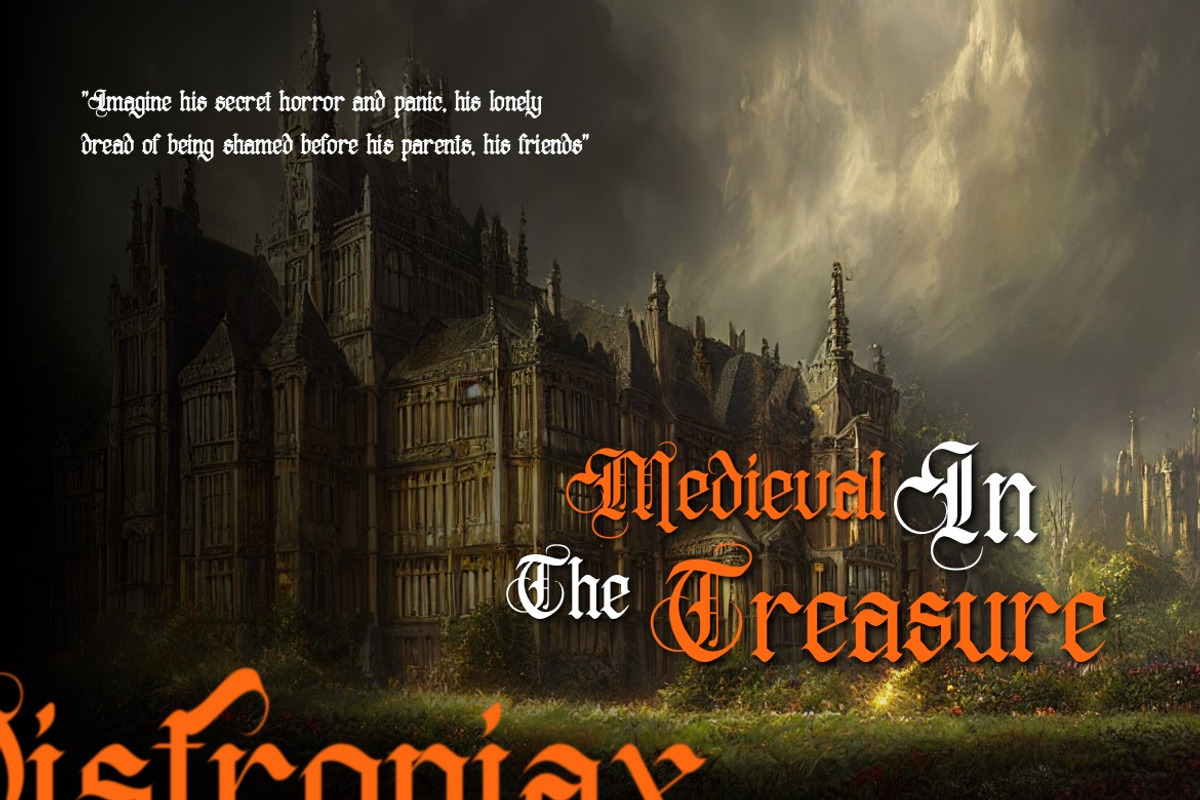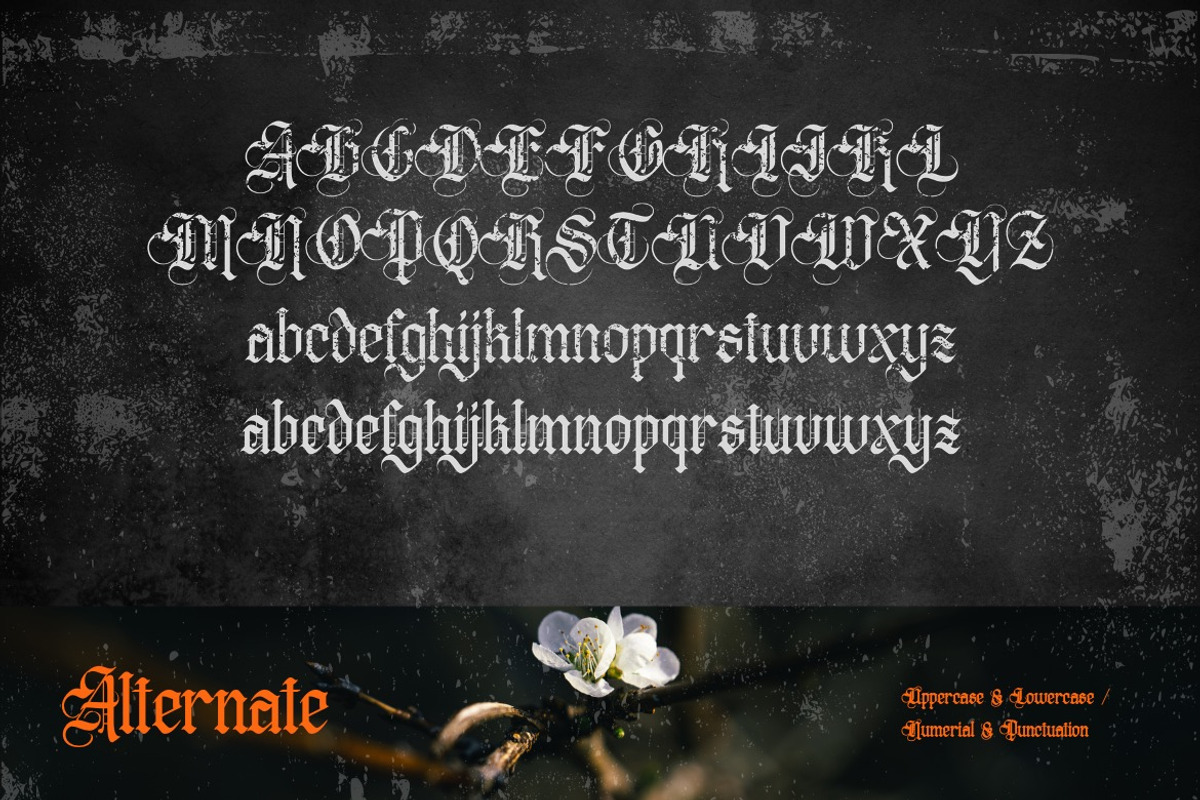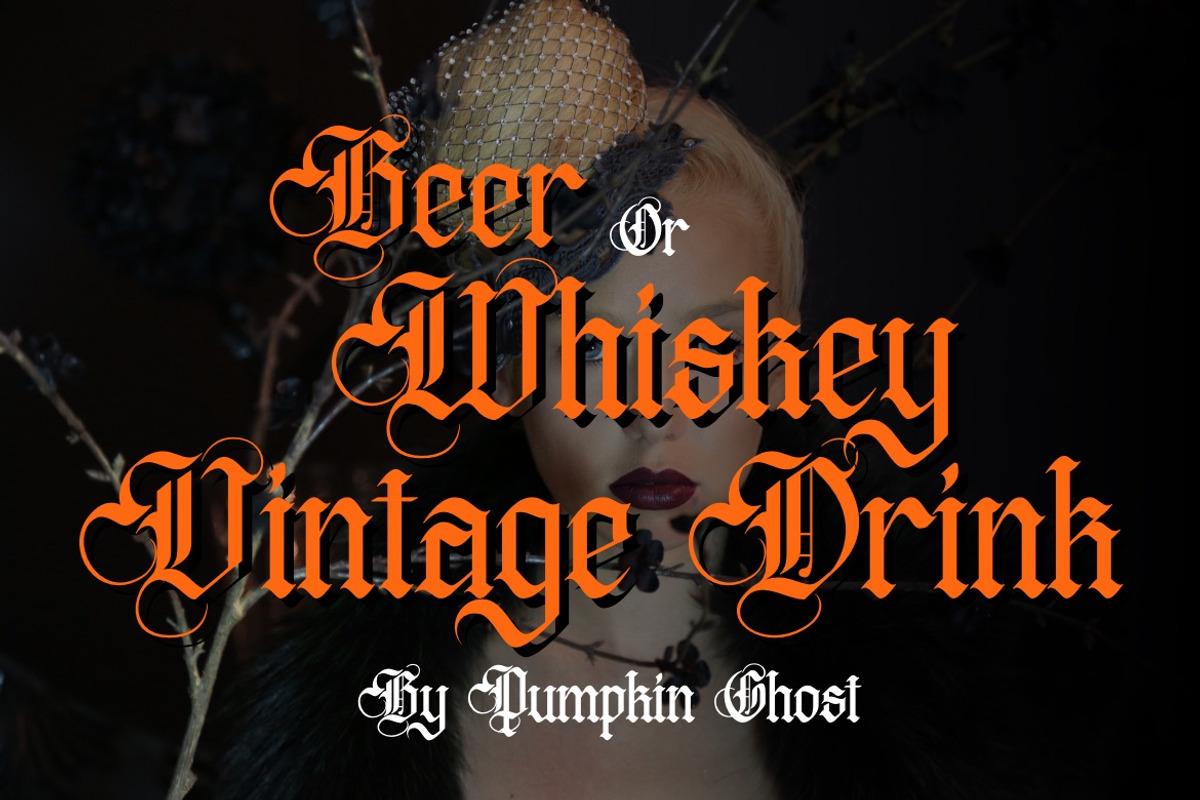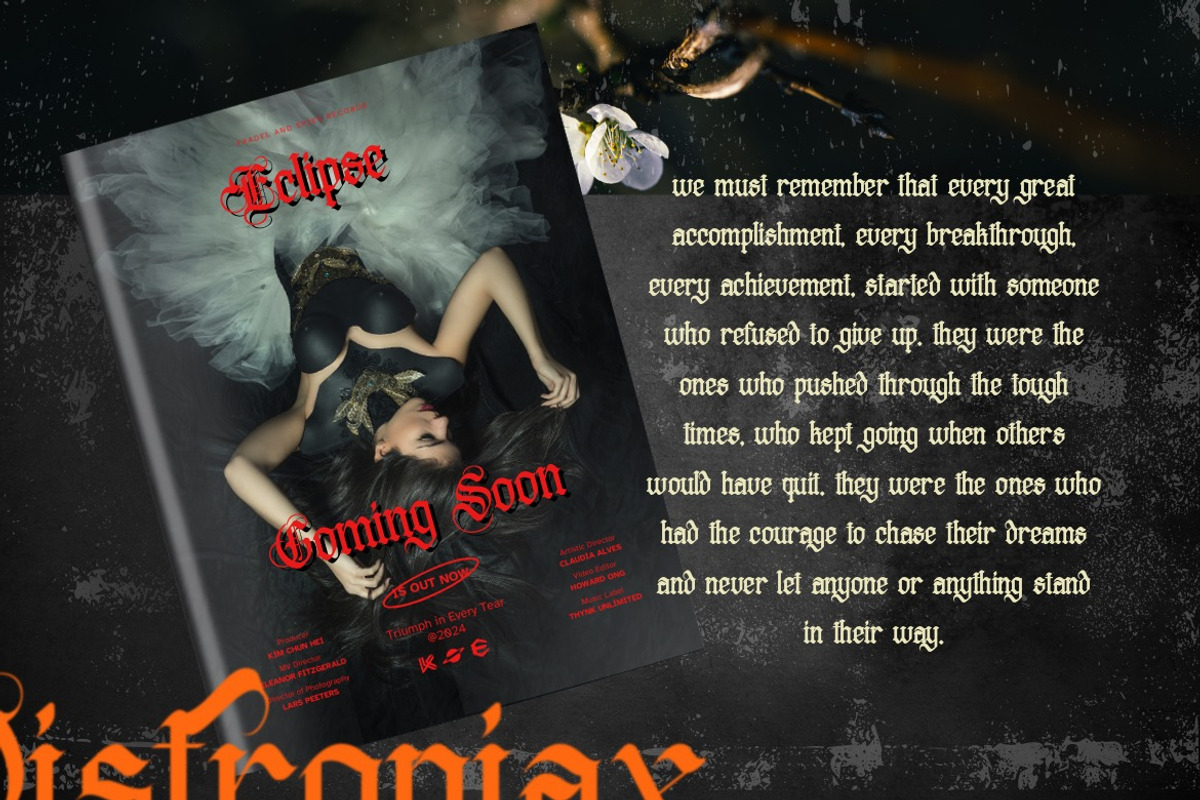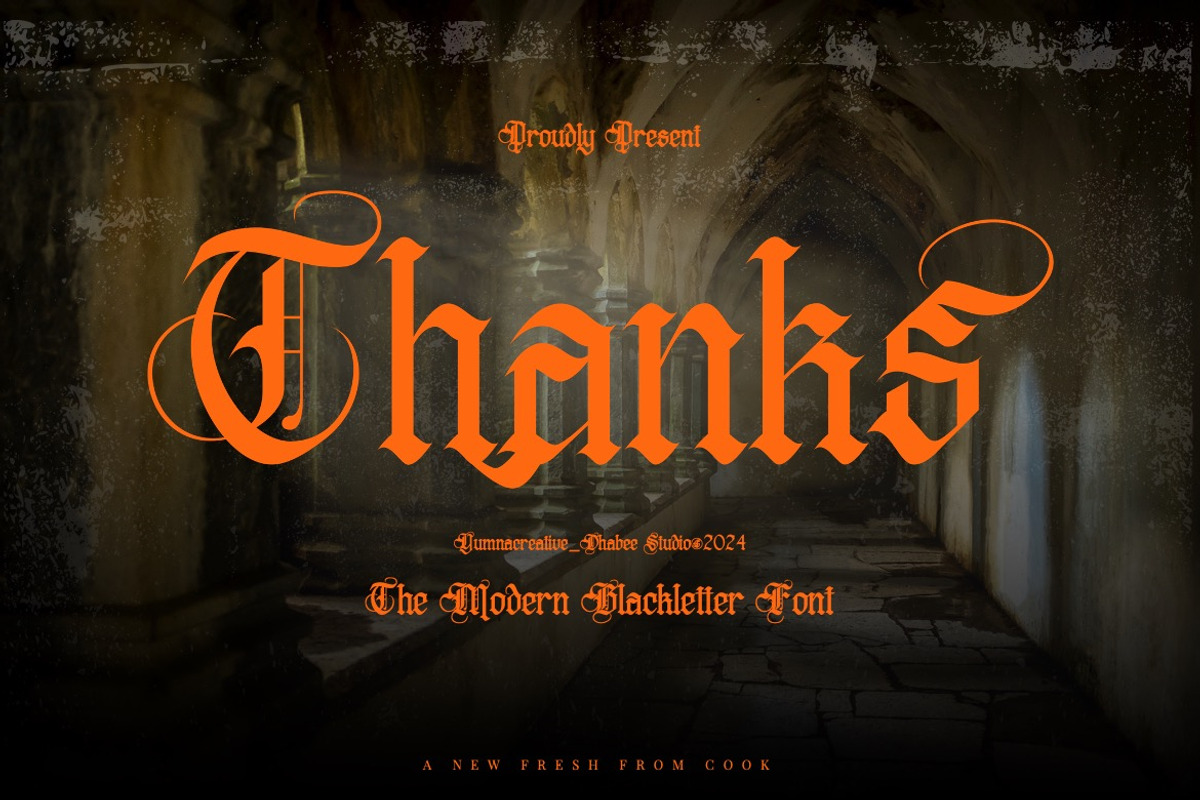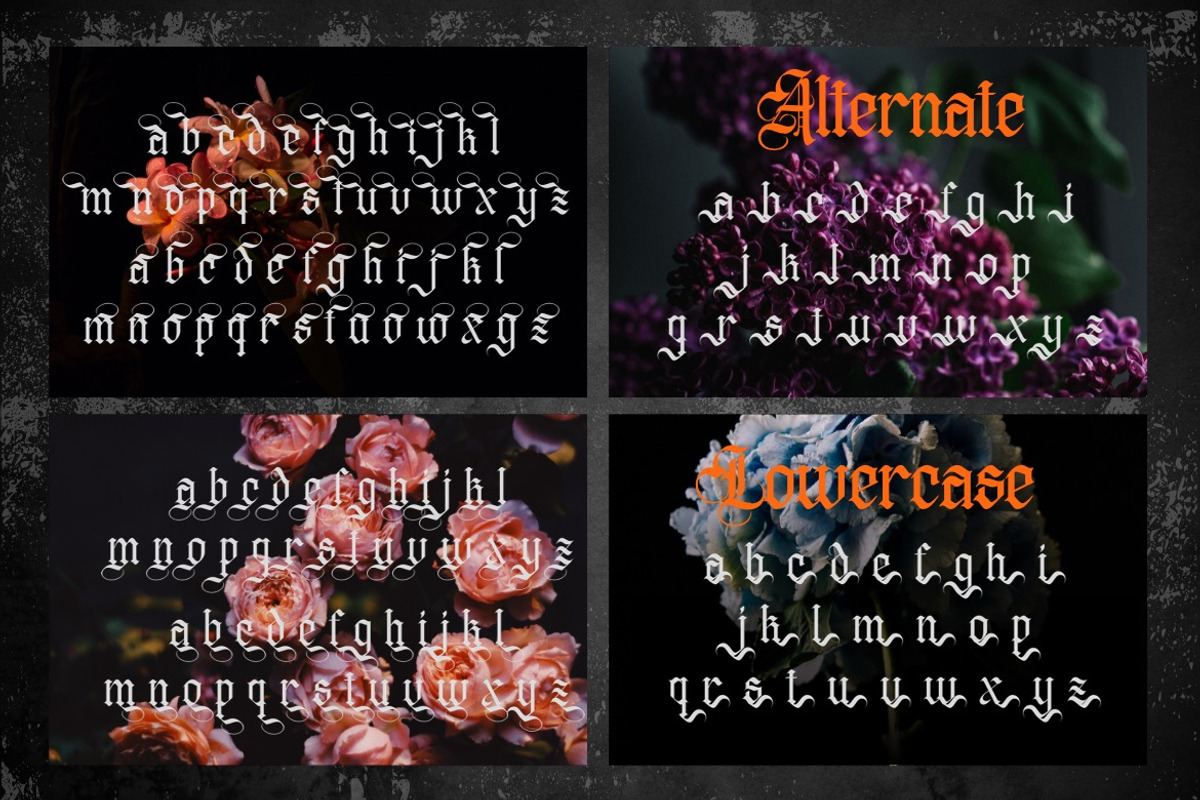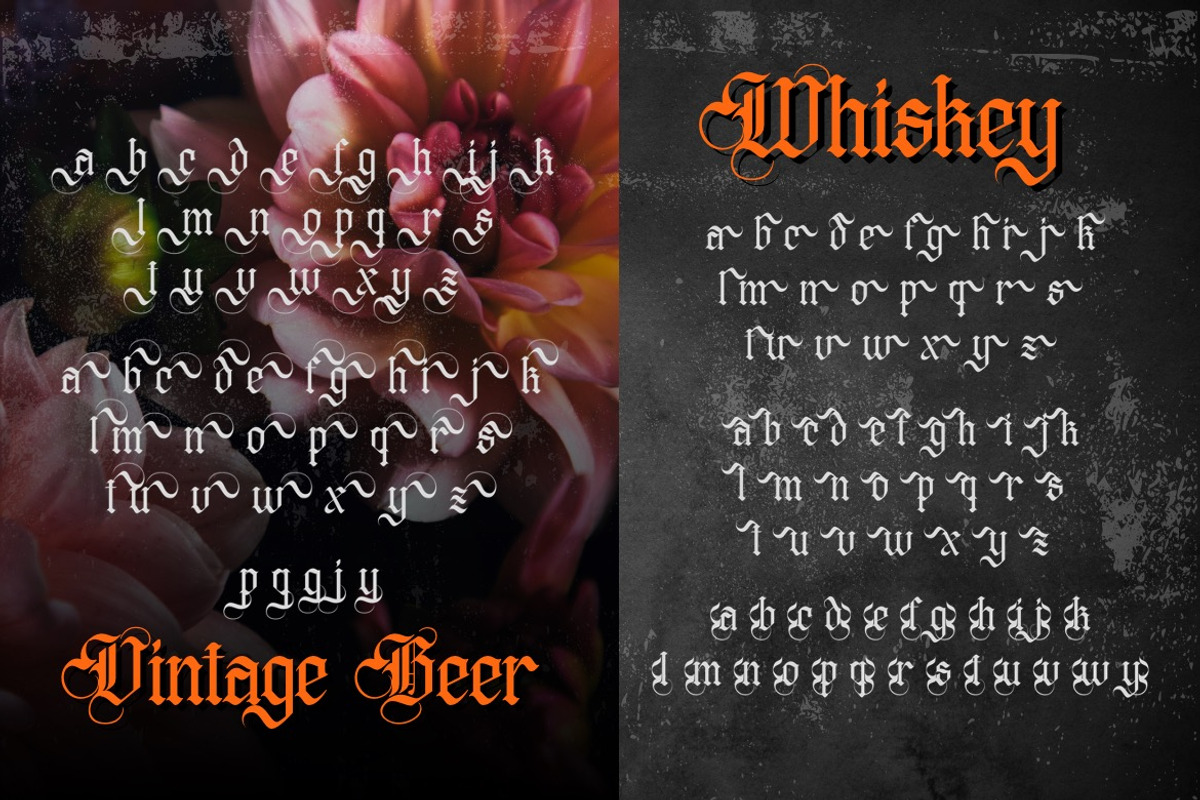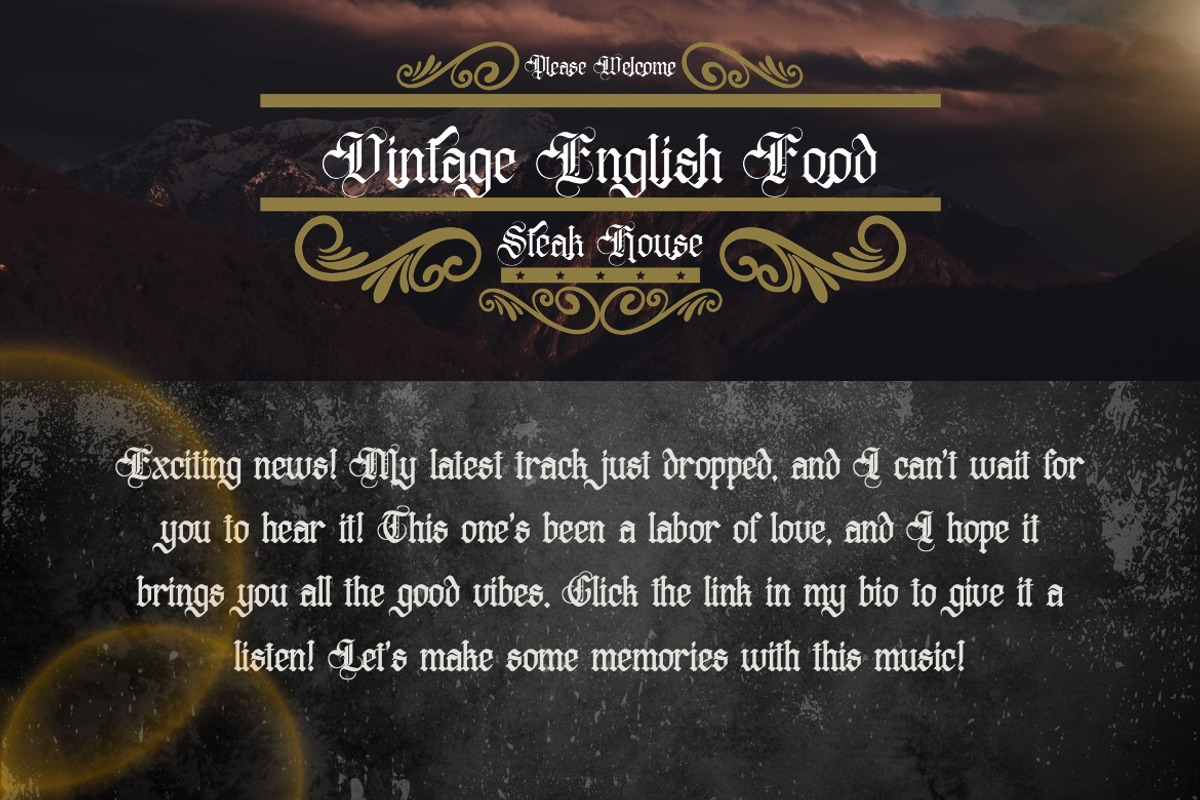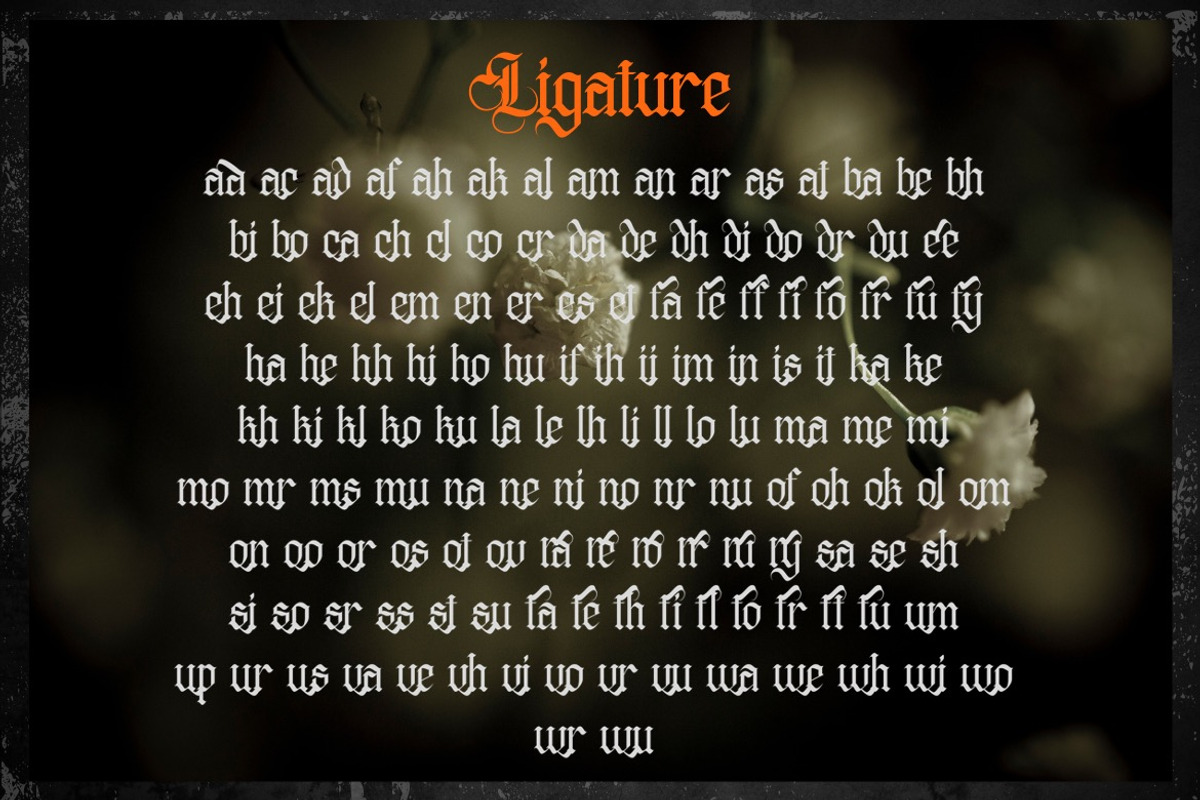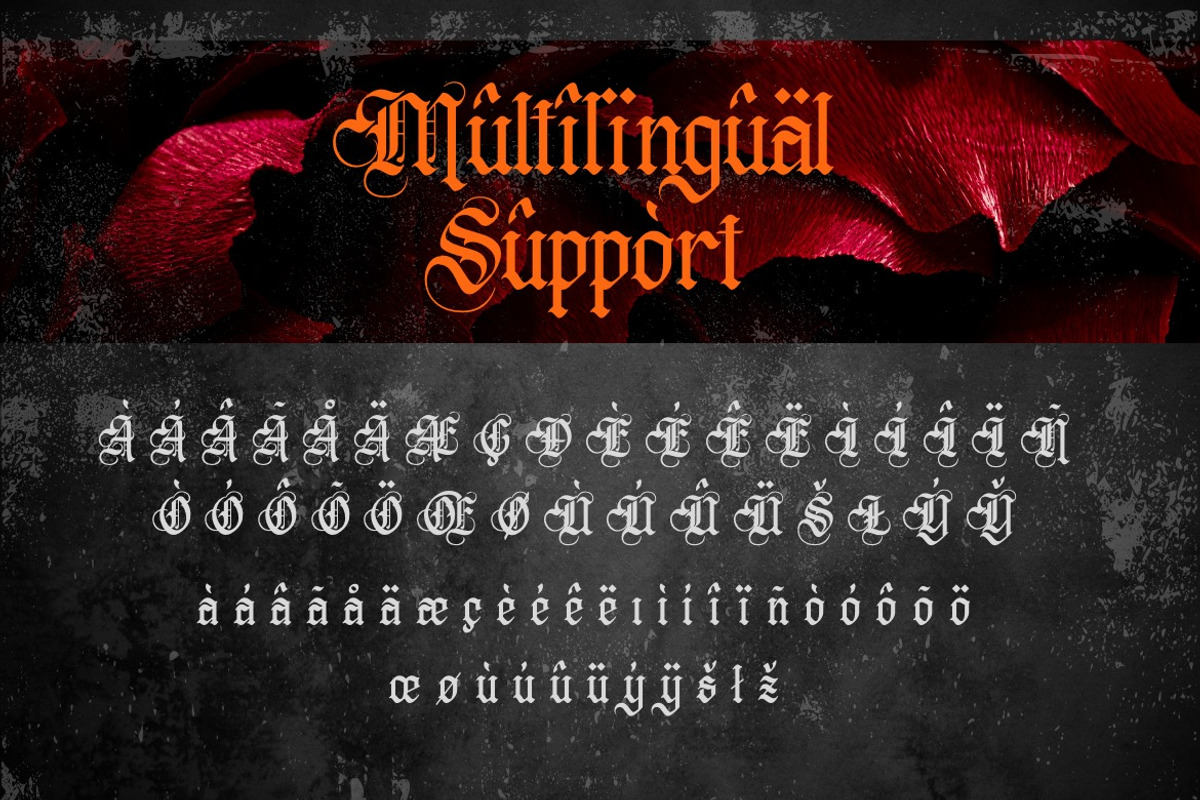
Distropiax - Modern Blackletter Font
Introducing Distropiax - Modern Blackletter Font
Distropiax - Modern Blackletter Font is a bold blackletter fraktur display font that merges traditional Gothic aesthetics with modern impact. Its intricate letterforms feature sharp angles, dramatic strokes, and striking contrasts, embodying strength, authority, and historical charm. The bold weight enhances its commanding presence, making it ideal for designs that demand attention and sophistication.
• Alternate & Ligature